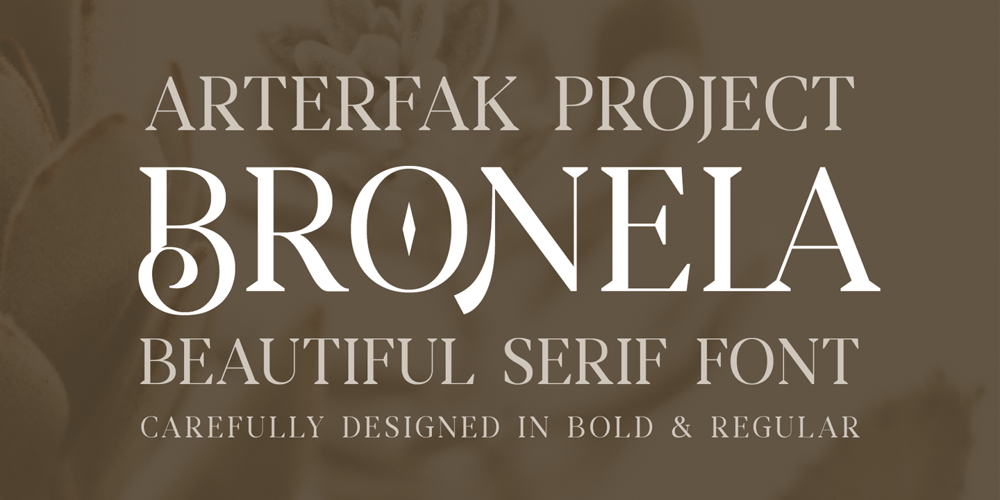
Bronela
Bronela font
Bronela Font Family was designed by Ahmad Ramzi Fahruddin and published by Arterfak Project. Bronela contains 2 styles and family package options. Bronela is an elegant serif font that comes with a regular and bold style. Created with a strong serif, high contrast, and luxury feel, inspired by classic text font and fashionable typography trends. These fonts look very versatile to use in large or small sizes and possibly to be used for many purposes. Feminine and masculine at the same time.Bronela equipped with lots of classy ligatures and tons of alternates characters that you can mix and match to get more variation of typographic designs. In 590+ glyphs total, Bronela is suitable for logo, headline, labels, editorial, poster, packaging, quotes, cards, weddings, and other advertising needs!Fonts featured : Uppercase Lowercase Numbers Punctuation & symbols Multilingual support Stylistic alternates Stylistic set 01 – 06 Ligatures Thank you for watching and your support.Hope you enjoy playing with Bronela, as much as I created this lovely font.